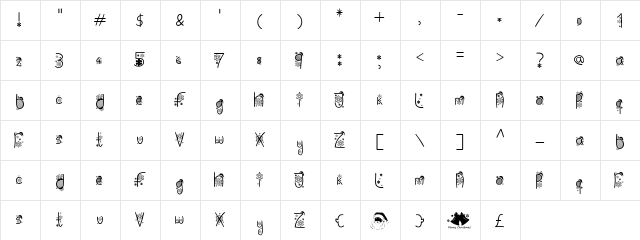
Magic Christmas Regular
Design Context for Magic Christmas Typeface
Magic Christmas is a composed and adaptable typeface that performs quietly and consistently across a wide range of design contexts.